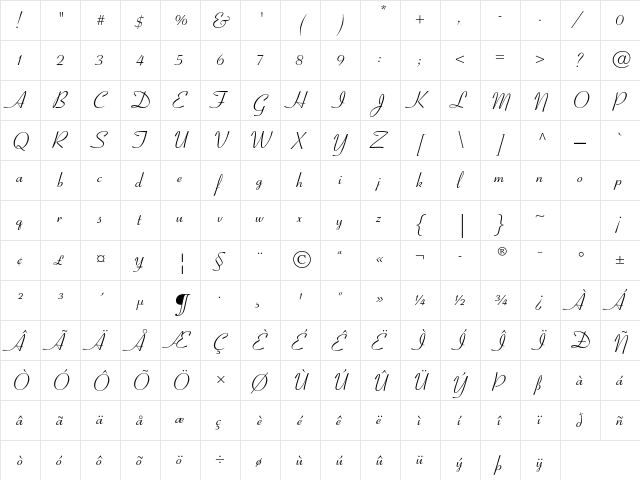
Coronet LT Std Regular Font Preview
Coronet LT Std Regular
Coronet LT Std Regular Font Details
| Designer | R. Hunter Middleton |
Design Context for Coronet LT Std Typeface
Coronet LT Std takes a measured approach to typography — its balanced proportions and neutral character make it a reliable workhorse for both digital and print work. The delicate stroke weight brings airiness and refinement to layouts.